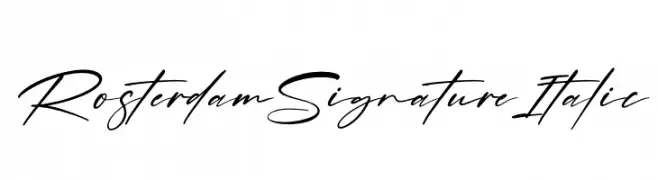
A cursive, handwritten font with elegant and flowing strokes.
A modern, elegant script font with fluid, cursive letterforms.
A modern, elegant script font with flowing, connected characters.
An elegant script font with flowing, ornate characters and intricate loops.
An elegant, flowing script font with decorative flourishes and a cohesive, italic style.
A bold, energetic handwritten script with a playful and modern aesthetic.
A bold, cursive font with dynamic, sweeping strokes and a lively style.
A modern, elegant script font with fluid, dynamic strokes and a handwritten quality.
A sophisticated, elegant handwritten script with fluid, connected letterforms.
A bold, flowing script font with a lively and energetic style.